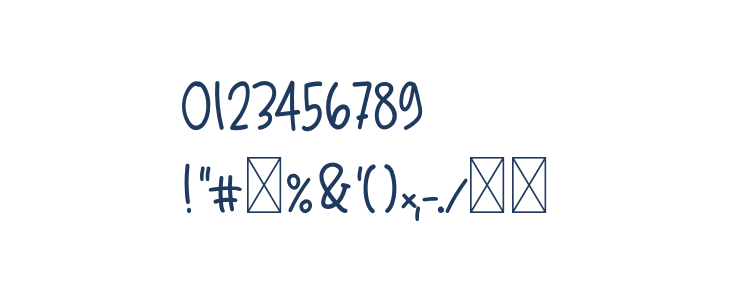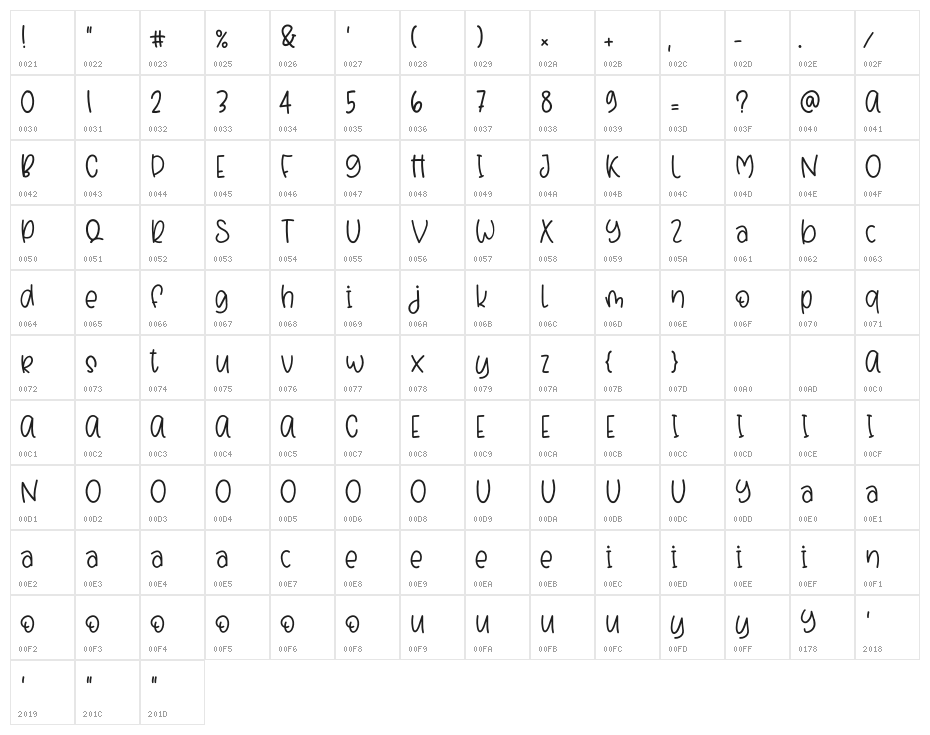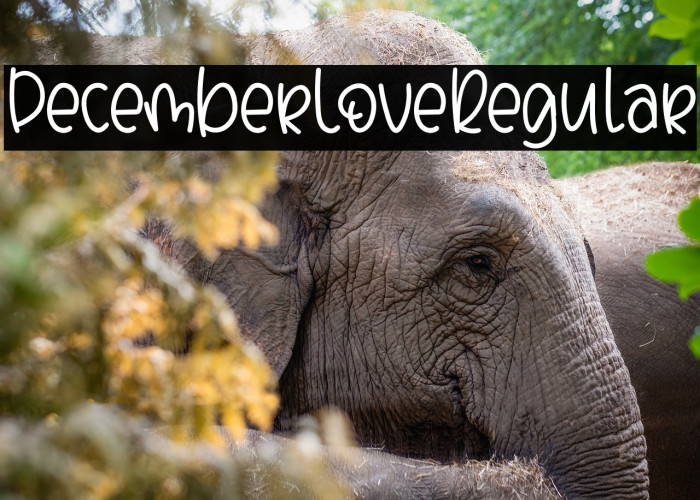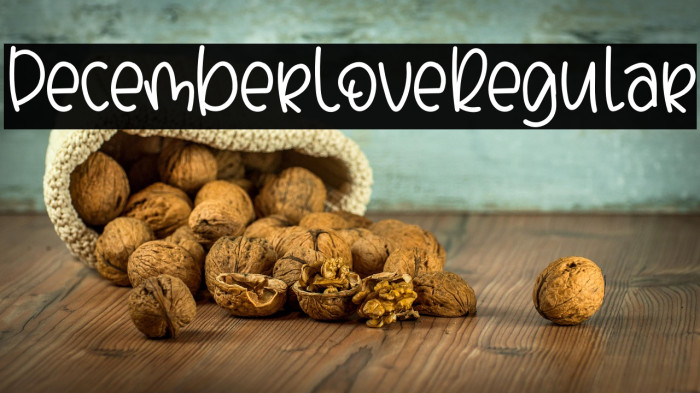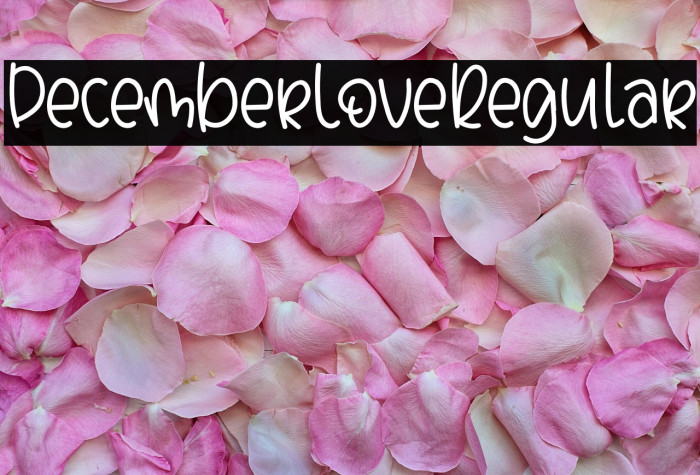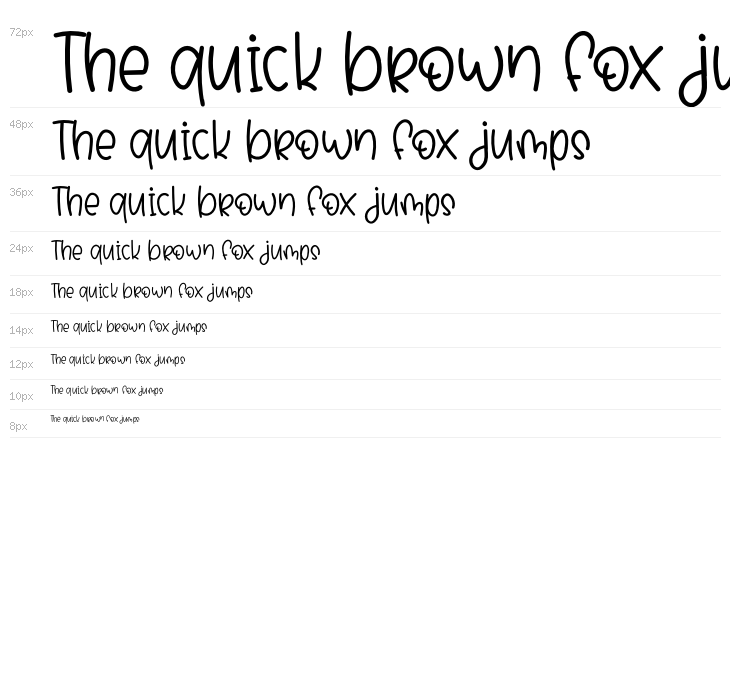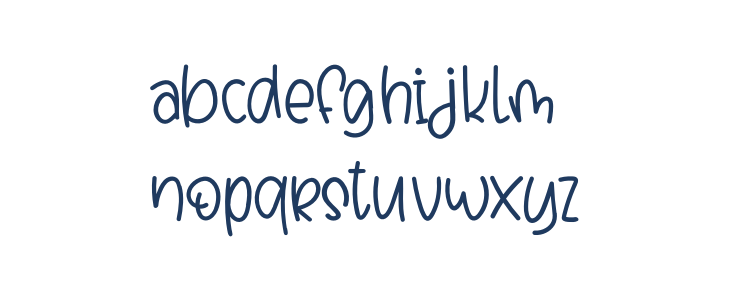
DecemberLoveRegular Font
DecemberLoveRegular Description
This font exudes a playful and casual handwritten style, characterized by its smooth, flowing curves and slightly irregular letterforms. The uppercase and lowercase letters maintain a consistent height, contributing to a harmonious appearance. The numbers and special characters follow the same whimsical style, making the font versatile for various creative applications. Its informal nature makes it ideal for projects that require a personal touch, such as greeting cards, invitations, and social media graphics. The font's legibility is enhanced by its medium contrast and normal character spacing, ensuring readability while maintaining its unique charm.
| Use Case | Headlines, Logos, Informal text |
| Proposed Projects | Ideal for greeting cards, invitations, social media graphics, and personal branding. |